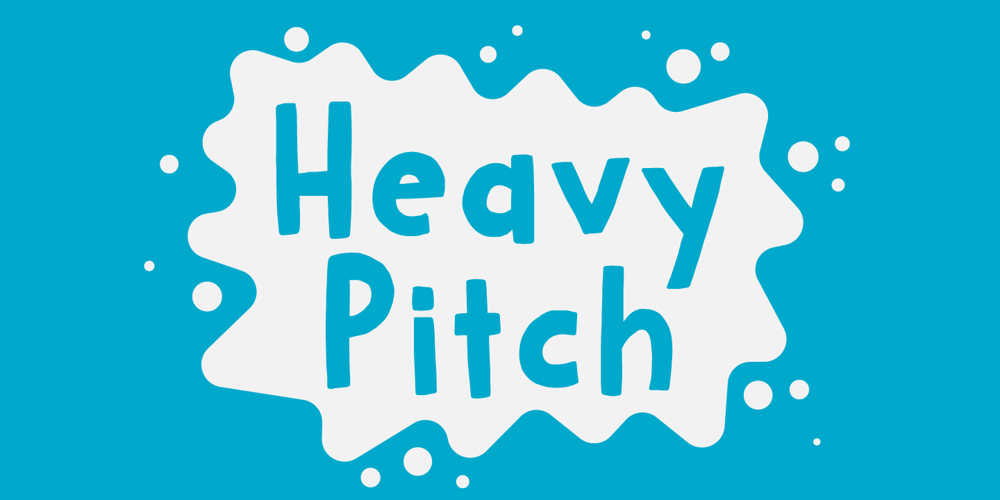
Heavy Pitch Font Family was designed by Jakob Fischer and published by PizzaDude.dk. Heavy Pitch contains 2 styles and family package options. Fun packed comic style font. Especially made for commercial products such as all kinds of packaging, cereals, video games, candy, kids toys and alike. I added ligatures for double letters to avoid a repeating look. Enjoy!